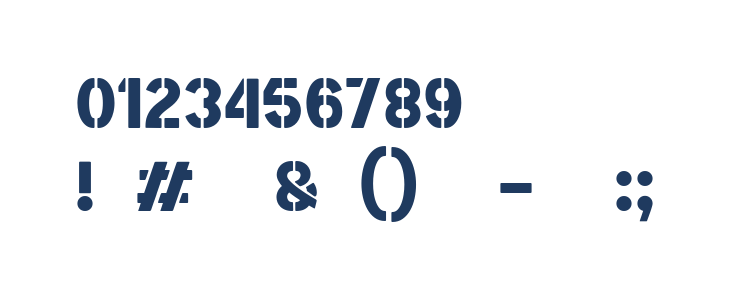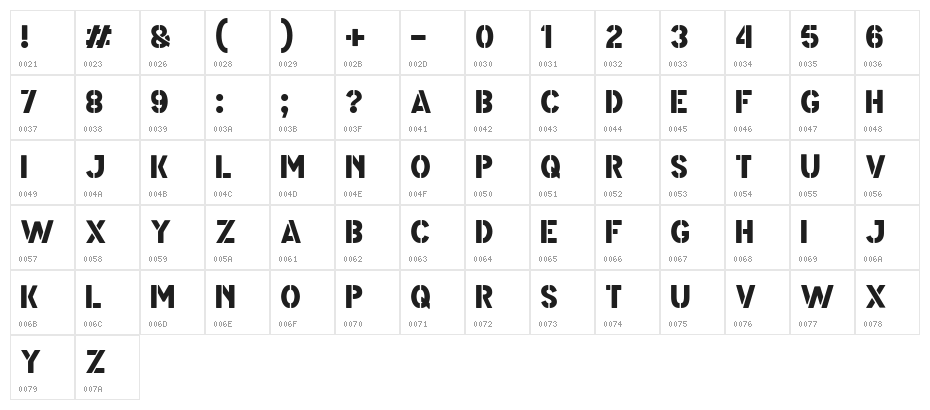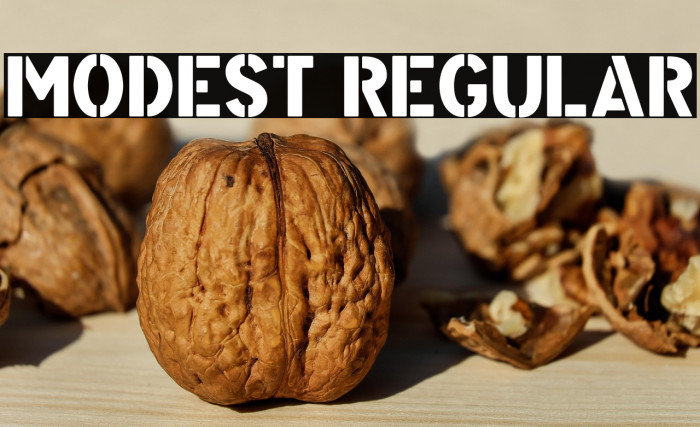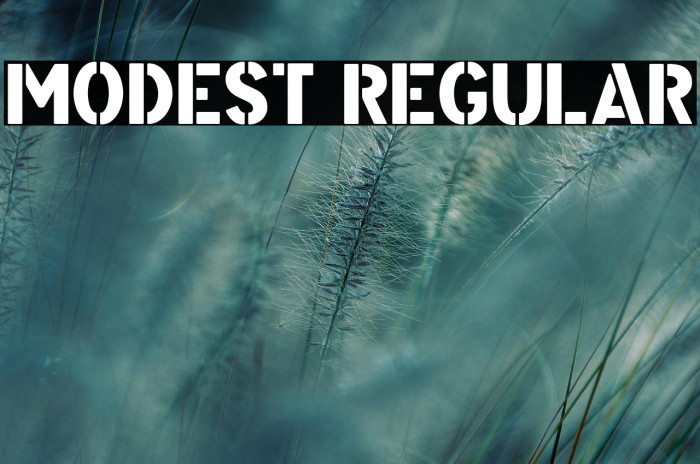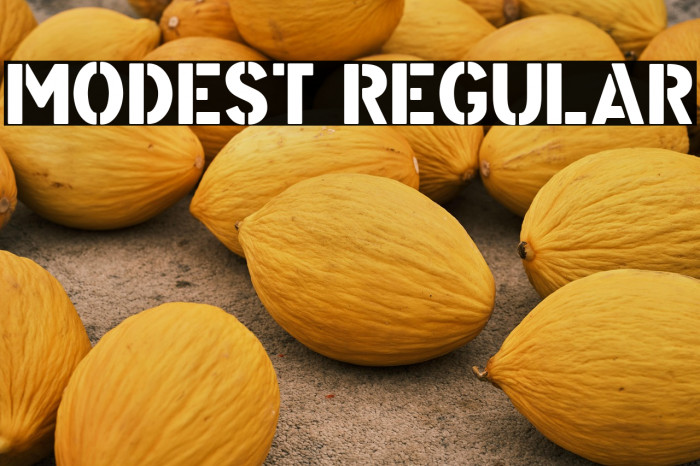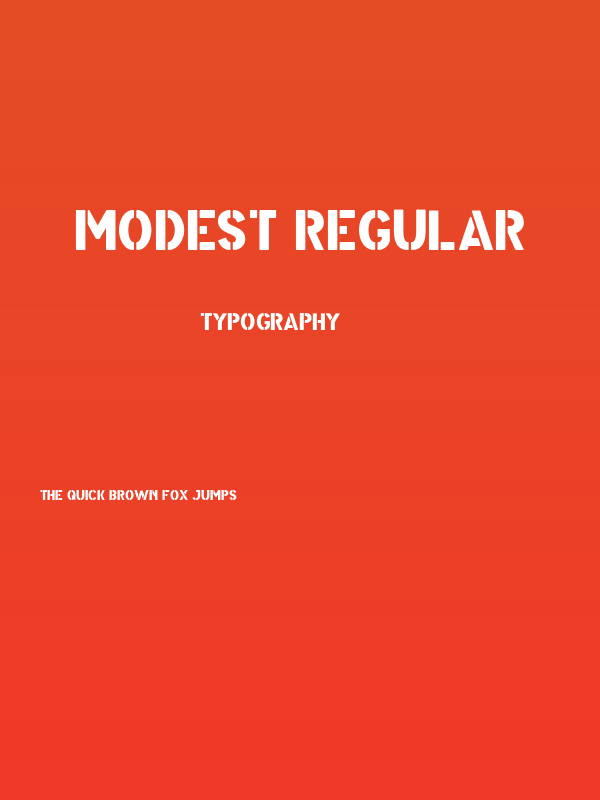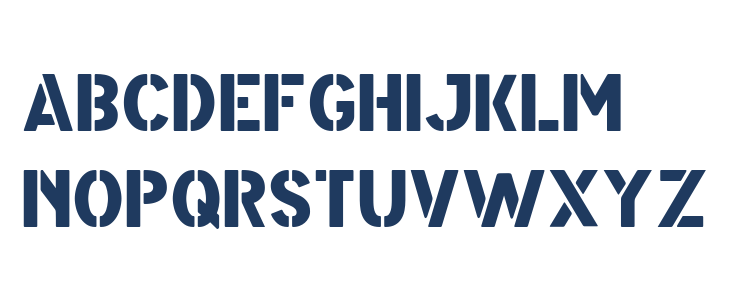
Modest Regular Font
Modest Regular Description
This font features a bold, stencil-like design with strong geometric shapes and high contrast. The characters are constructed with solid, blocky forms, interrupted by strategic cuts that create a distinctive, industrial appearance. The uppercase letters are particularly striking, with their robust and commanding presence. The numerals and special characters maintain this cohesive style, ensuring uniformity across all glyphs. This font's unique cut-out style makes it ideal for impactful designs where readability and boldness are key.
| Proposed Projects | Ideal for posters, signage, branding, and any project requiring a strong, industrial aesthetic. |